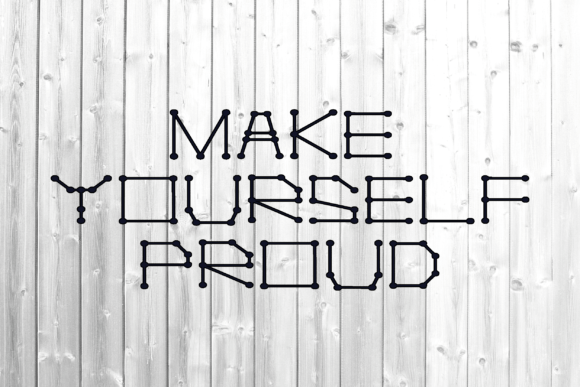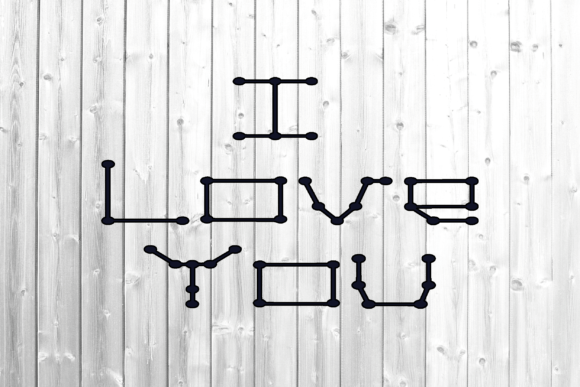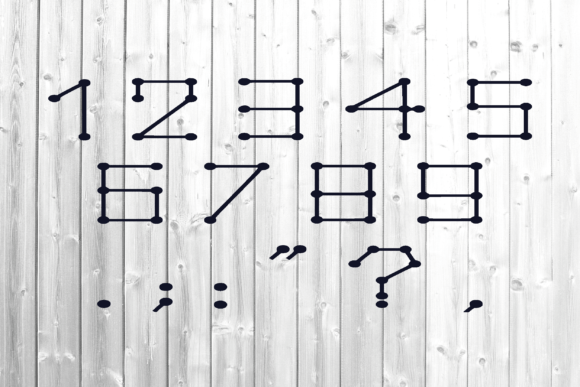
Introducing Dots Lines Font: The Ultimate Decorative Font for Fun and Creativity
Are you a designer or crafter looking for a font that can add a touch of fun and whimsy to your designs? Look no further than Dots Lines Font! This cool and fun decorative font is perfect for anyone who wants to add a bold and cheerful touch to their creative projects. In this article, we’ll take a closer look at Dots Lines Font and explore its features, benefits, and uses.
What is Dots Lines Font?
Dots Lines Font is a unique and playful font that features a distinctive dotted line design. The font is made up of small dots that are connected to form letters and numbers, giving it a fun and lively feel. The font is available in a bold style, which makes it perfect for adding a statement to your designs.
Features of Dots Lines Font
- Unique and Playful Design: Dots Lines Font features a one-of-a-kind design that is sure to grab attention. The dotted line style gives the font a fun and whimsical feel that is perfect for a variety of design projects.
- Bold and Easy to Read: The bold style of Dots Lines Font makes it easy to read, even at smaller sizes. This makes it perfect for use in a variety of design projects, from posters and flyers to social media graphics and more.
- Versatile: Dots Lines Font is a versatile font that can be used in a variety of design projects, from cute quotes and books to branding and advertising.
Benefits of Using Dots Lines Font
There are many benefits to using Dots Lines Font in your design projects. Here are just a few:
- Adds a Touch of Whimsy: Dots Lines Font adds a touch of whimsy and fun to your designs, making them stand out from the crowd.
- Perfect for Kids and Adults Alike: The font’s playful design makes it perfect for use in projects aimed at kids, while its bold style ensures it will also appeal to adults.
Uses for Dots Lines Font
Dots Lines Font is a versatile font that can be used in a variety of design projects. Here are just a few ideas to get you started:
- Cute Quotes and Sayings: Use Dots Lines Font to add a touch of fun and whimsy to your quote and saying designs.
- Books and Children’s Literature: The font’s playful design makes it perfect for use in children’s books and other literature aimed at kids.
- Branding and Advertising: Dots Lines Font can be used to add a bold and eye-catching touch to your branding and advertising designs.
- Social Media Graphics: Use Dots Lines Font to add a fun and playful touch to your social media graphics.
Tips for Using Dots Lines Font
Here are a few tips for getting the most out of Dots Lines Font:
- Experiment with Different Sizes: Dots Lines Font looks great at a variety of sizes, so don’t be afraid to experiment to find the perfect size for your design.
- Pair with Other Fonts: Dots Lines Font pairs well with a variety of other fonts, so try pairing it with some of your favorite fonts to create a unique look.
- Use in Combination with Images: Dots Lines Font looks great when used in combination with images, so try incorporating it into your designs along with photos or illustrations.
Dots Lines Font is a fun and playful decorative font that is perfect for designers and crafters looking to add a bold and cheerful touch to their designs. With its unique and whimsical design, bold style, and versatility, Dots Lines Font is sure to become a go-to font for a variety of design projects. Whether you’re creating cute quotes, children’s books, or social media graphics, Dots Lines Font is sure to enhance your designs and add a touch of fun and whimsy.